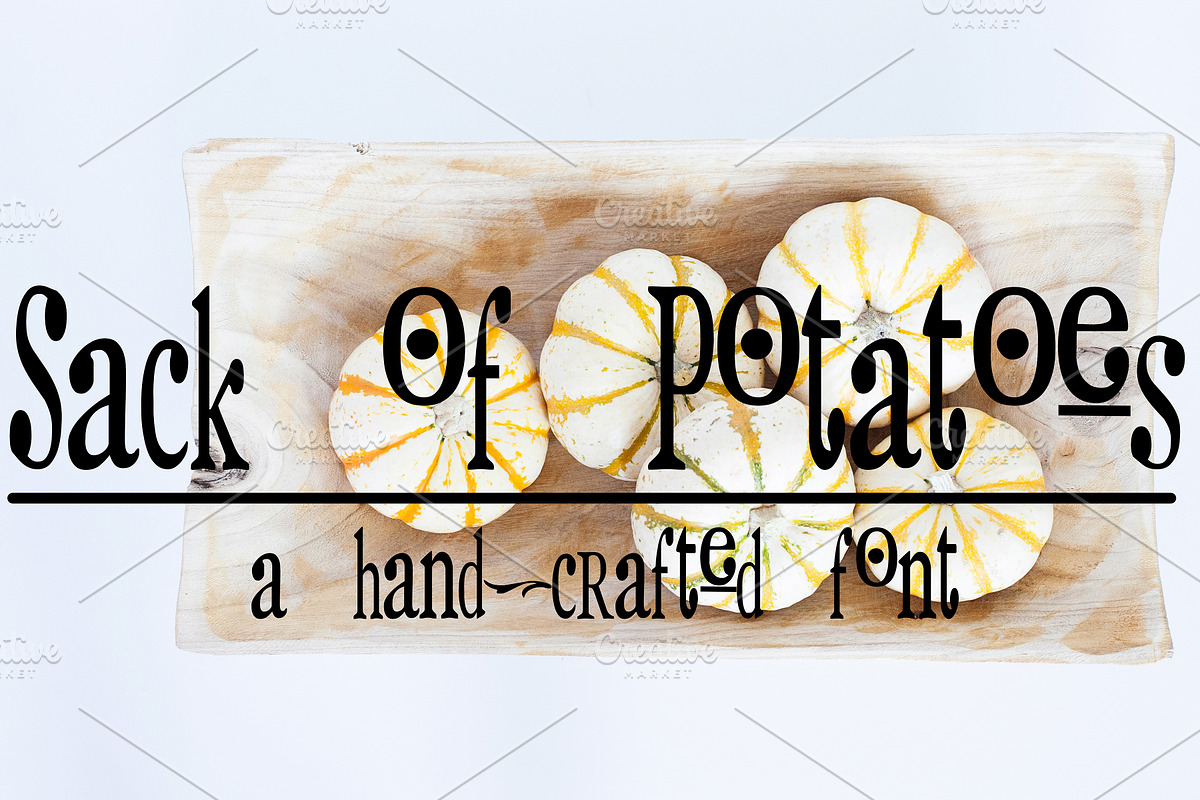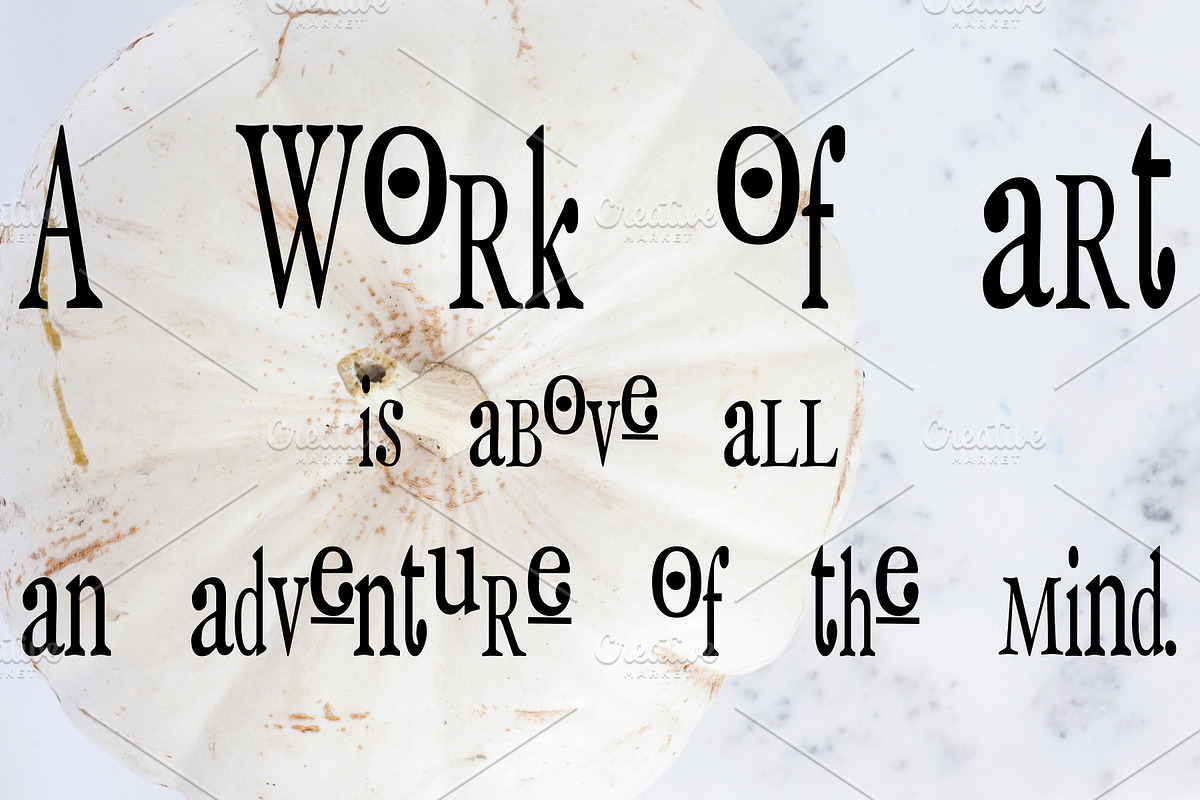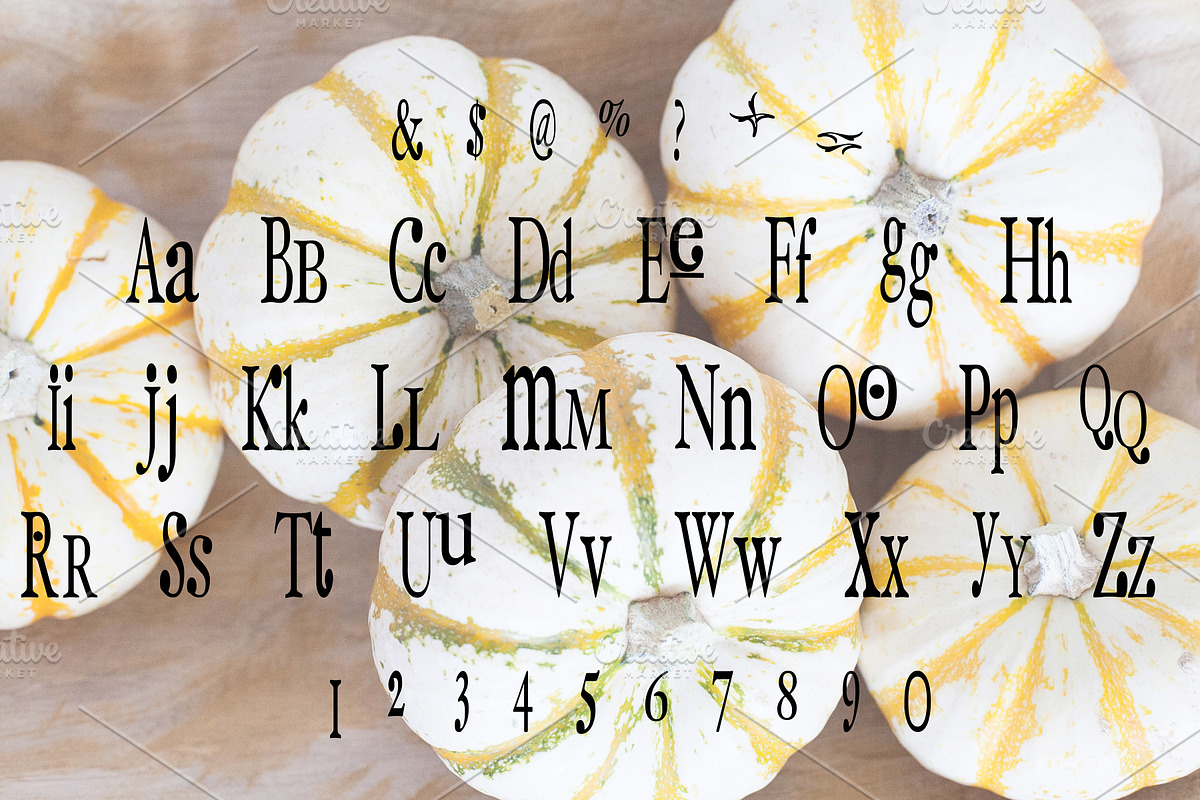
SACK OF POTATOES Hand Crafted Font
SACK OF POTATOES Hand Crafted Font by Rhonna Designs is a font selected for branding, posters, packaging, typography.
Why SACK OF POTATOES Hand Crafted Font is worth a look
SACK OF POTATOES Hand Crafted Font by Rhonna Designs fits naturally into Branding, posters, packaging, typography.